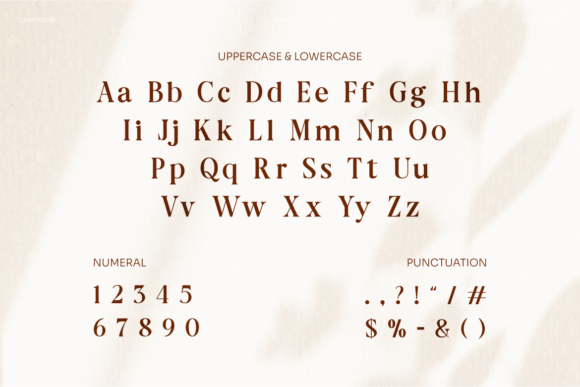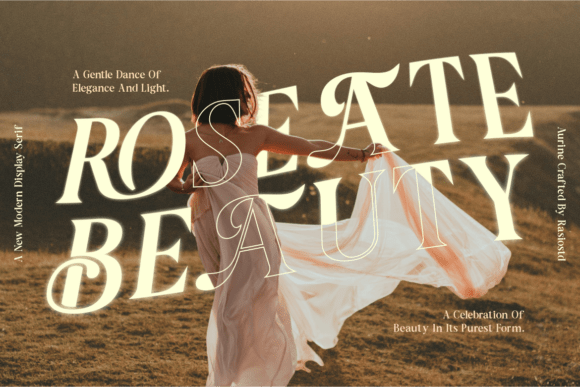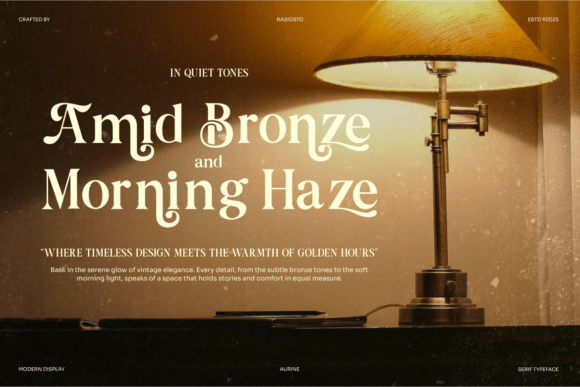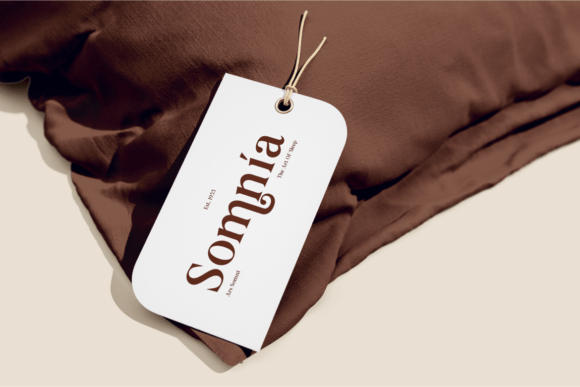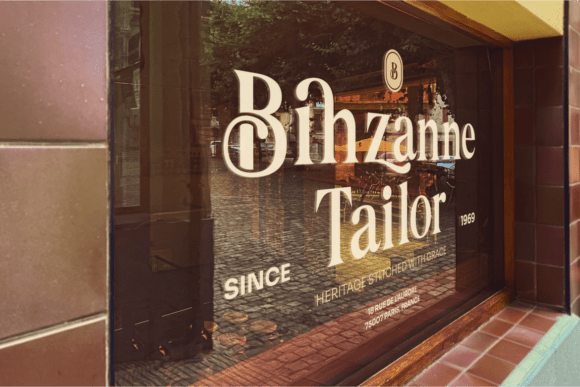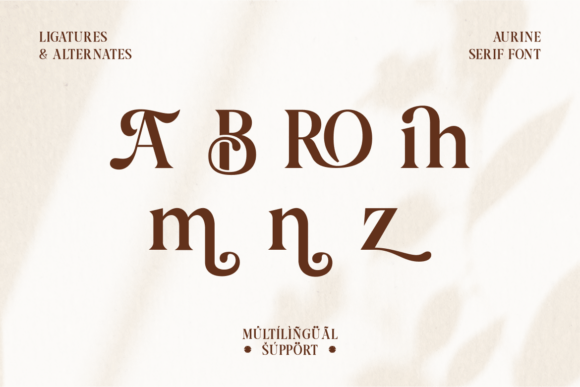
Aurine Font: Elevate Your Designs with Sophistication and Elegance
In the world of typography, a font can make or break the aesthetic of a design. For those seeking a sophisticated and modern serif font that exudes classy elegance and bold personality, look no further than Aurine. This stunning font is perfect for luxury branding, wedding invitations, editorial headlines, premium logos, and upscale packaging, making it a versatile choice for designers and crafters.
The Essence of Aurine Font
Aurine is a masterfully crafted font that seamlessly blends traditional serif elements with modern flair. Its multilingual support, serif condensed proportions, and lavish detailing make it an ideal choice for professional, feminine, and modern luxury projects. Whether you’re designing a fashion magazine, signature logo, celebration design, or premium corporate identity, Aurine’s elegant bold strokes and retro serif charm are sure to impress.
Luxury Branding and Beyond
Aurine’s sophisticated design makes it a perfect fit for luxury branding. Its elegant and refined appearance is sure to elevate any brand looking to establish a high-end presence. From wedding invitations to editorial headlines, Aurine’s versatility shines through, providing a consistent and premium look across various design applications.
Key Features of Aurine Font
- Multilingual Support: Aurine supports multiple languages, making it a great choice for global brands and designers working with diverse clients.
- Serif Condensed Proportions: Aurine’s condensed proportions allow for efficient use of space while maintaining readability and elegance.
- Lavish Detailing: The font’s lavish detailing adds a touch of sophistication and luxury to any design.
- Elegant Bold Strokes: Aurine’s bold strokes provide a sense of confidence and style, perfect for making a statement.
- Retro Serif Charm: The font’s retro serif elements add a unique and distinctive character to designs.
Design Applications for Aurine Font
Aurine’s versatility makes it suitable for a wide range of design applications, including:
- Luxury Branding: Create a high-end brand identity with Aurine’s sophisticated and elegant design.
- Wedding Invitations: Make a statement with beautiful and elegant wedding invitations that set the tone for a luxurious celebration.
- Editorial Headlines: Add a touch of sophistication to editorial headlines and make your content stand out.
- Premium Logos: Create a lasting impression with a premium logo that exudes elegance and refinement.
- Upscale Packaging: Elevate your packaging design with Aurine’s luxurious and sophisticated aesthetic.
Why Choose Aurine Font?
With so many fonts available, why choose Aurine? Here are a few compelling reasons:
- Unique Blend of Elegance and Personality: Aurine offers a perfect balance of sophistication and boldness, making it a standout choice.
- High Versatility: The font’s adaptability makes it suitable for a wide range of design applications.
- Multilingual Support: Cater to a global audience with Aurine’s multilingual support.
- Professional and Feminine Appeal: Aurine’s design is both professional and feminine, making it perfect for a variety of projects.
| Font Name | Aurine Font |
Aurine font is a game-changer for designers and crafters seeking to elevate their designs with sophistication and elegance. Its unique blend of modern serif elements, lavish detailing, and bold personality makes it a versatile choice for luxury branding, wedding invitations, editorial headlines, premium logos, and upscale packaging. With its multilingual support, serif condensed proportions, and elegant bold strokes, Aurine is the perfect choice for professional, feminine, and modern luxury projects. Experience the power of Aurine and take your designs to the next level.